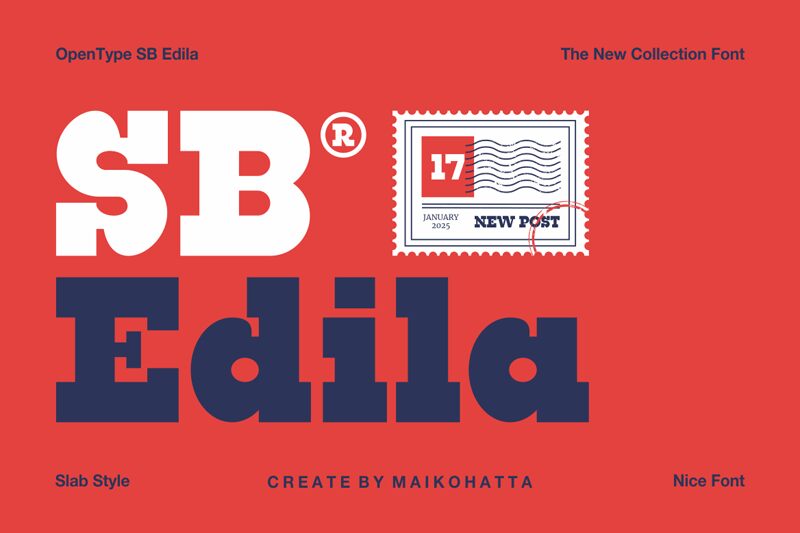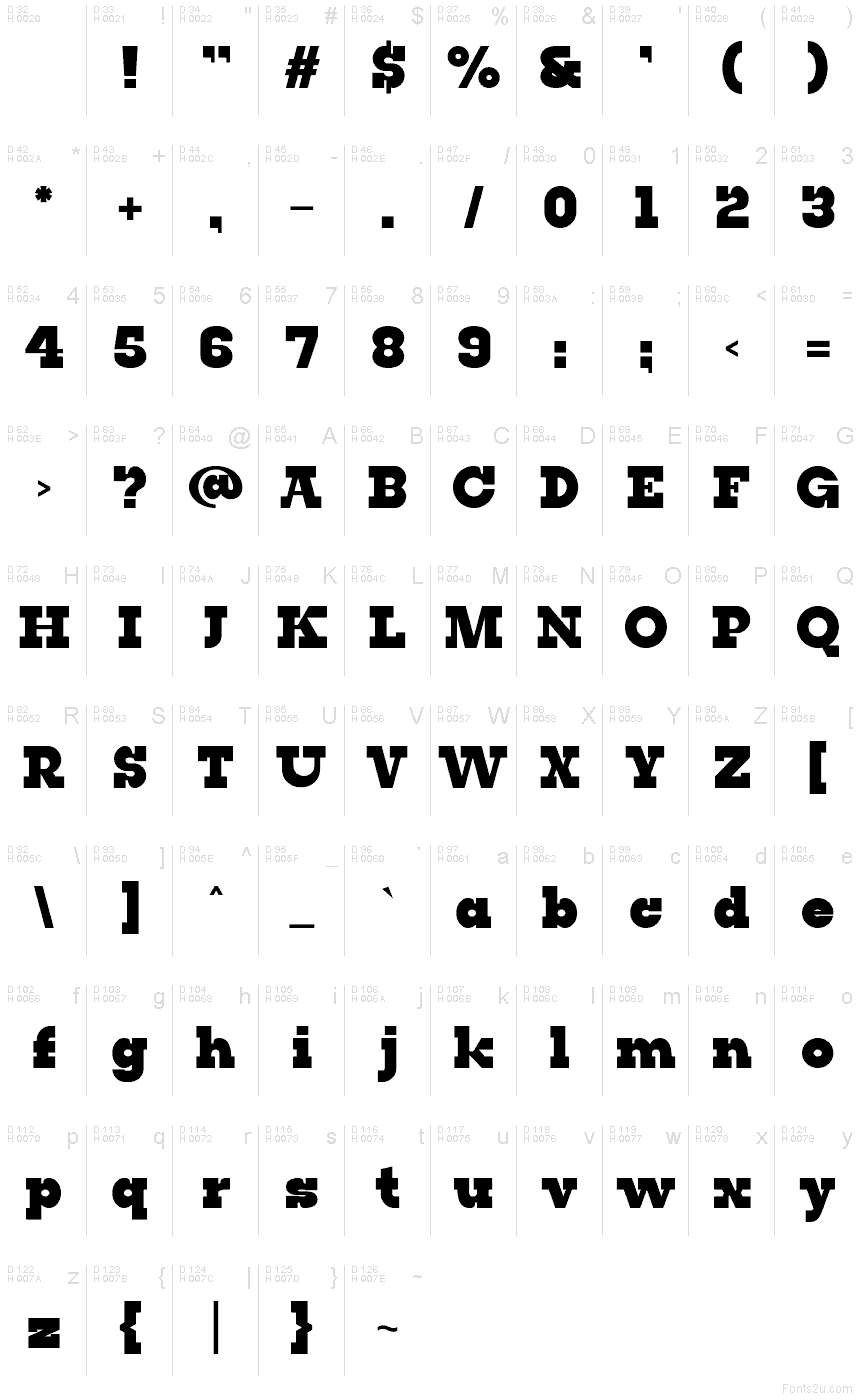
SB Edila
SB Edila font by Gilang Ternadho is a free bold serif typeface with a chunky, almost block-printed presence. Its wide, square curves and tightly packed shapes feel like carved woodblocks: sturdy, tactile, and unapologetically loud. Letters lock together like a modular system, creating dense, inky word shapes that grab attention without slipping into chaos.
Using SB Edila, you get a strong, rhythmic texture that shines on posters, logotypes, packaging, headlines, zines, and bold editorial spreads. This free font loves big sizes where its blocky details can breathe, while a simple, clean sans-serif works well as a supporting text partner.